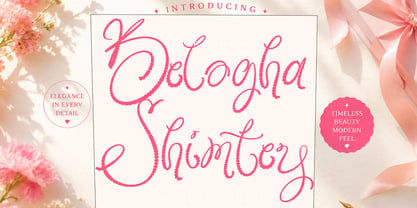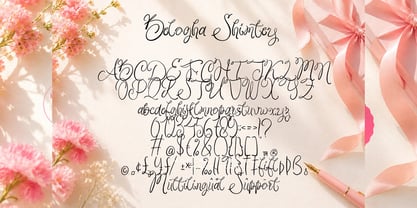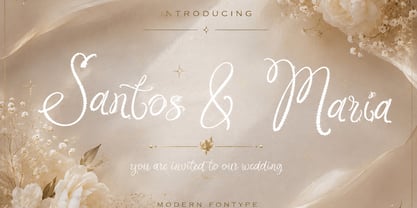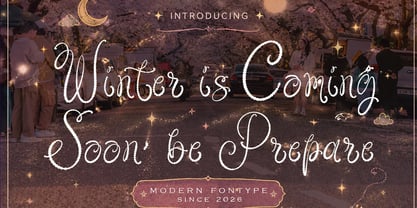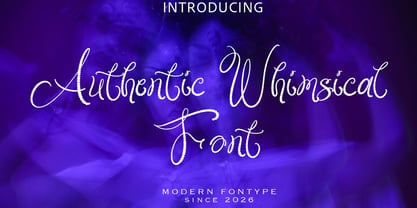
Belogha Shimtey
by Pineungtype misinklab
The Belogha Shimtey Font Family was designed by Beni Saswita and published by Pineungtype misinklab. Belogha Shimtey contains 1 styles. More about this family
Belogha Shimtey is a graceful modern script font that blends elegance, sweetness, and artistic charm into one beautiful typeface. Designed with delicate flowing curves and stylish handwritten details, this font brings a soft luxurious feel that is perfect for feminine branding, wedding invitations, beauty products, fashion labels, social media content, packaging, and elegant logo designs.
Its decorative swashes and smooth calligraphic strokes create a romantic and sophisticated appearance while still feeling fresh and modern. Belogha Shimtey is the perfect choice for creatives who want to add a classy, stylish, and memorable touch to their projects.